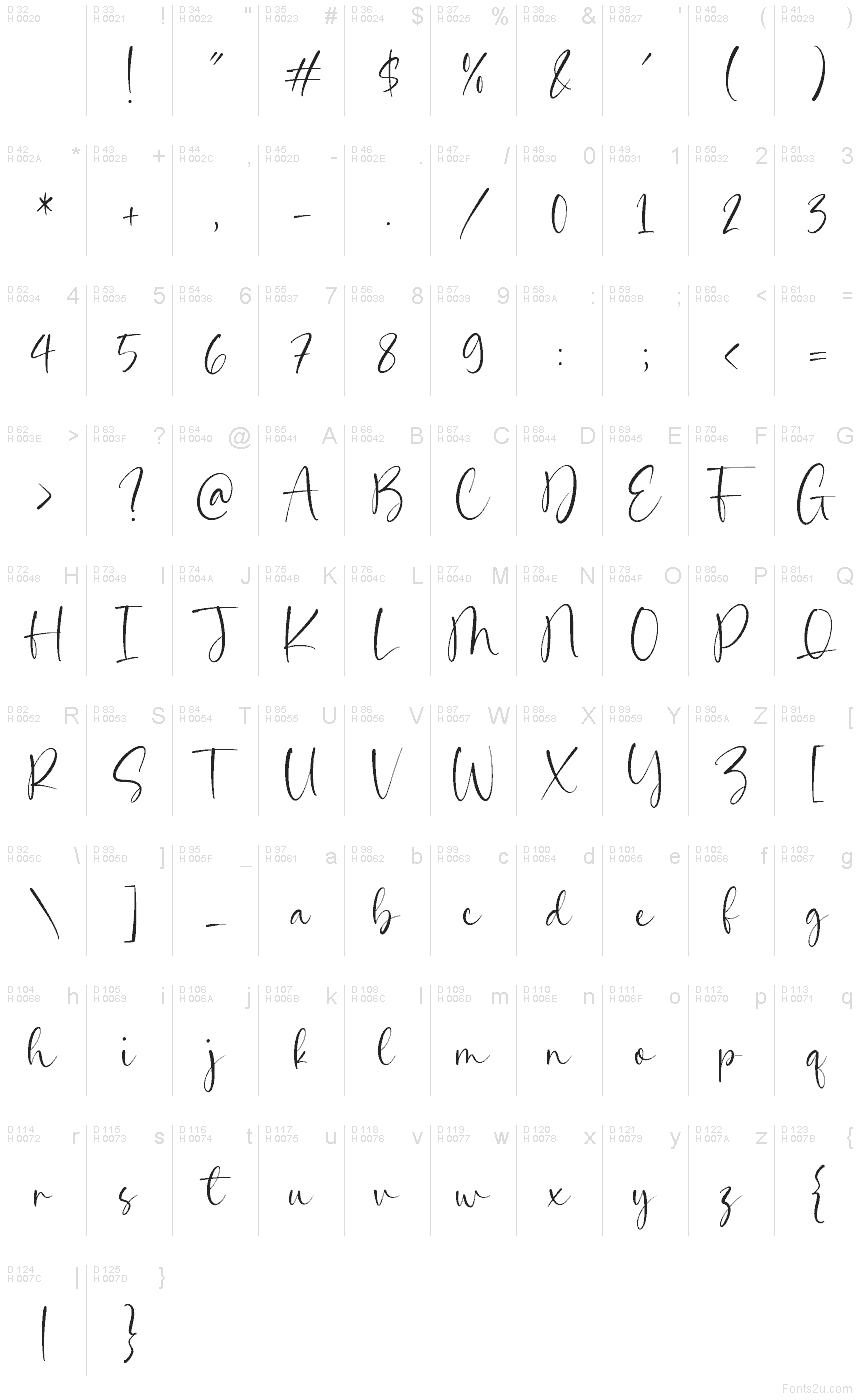
Gabriela Couture
Gabriela Couture font by Timur Type is a free elegant signature font. Built for luxe moments, its hairline entries swell into silky, pressure-pressed curves, with tall ascenders and feather-light exits that feel like wet ink on fine paper. The rhythm is airy but controlled, giving names and headlines that couture “whisper” of exclusivity without losing legibility.
Using Gabriela Couture, your branding sings on fashion logos, boutique packaging, invitation suites, beauty product labels, lookbook covers, and social headers. The gentle contrast and generous loops create memorable wordmarks and monograms, while the spacing leaves room for foil, emboss, or generous white space. Pair this free font with a crisp high-contrast serif for body copy, and size it large to showcase those elegant tapers.